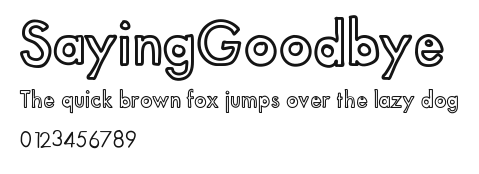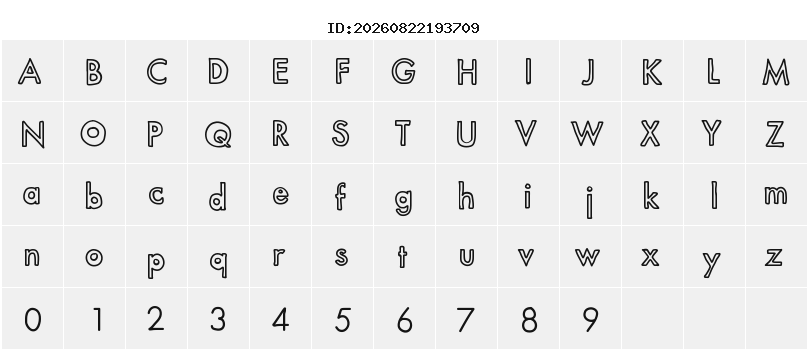
SayingGoodbye Preview
• Font Name: SayingGoodbye
• Full Font Name: SayingGoodbye
• PostScript Name: SayingGoodbye
About SayingGoodbye.ttf
SayingGoodbye.ttf is a modern, elegant sans-serif font designed for ultimate readability and visual harmony. Perfect for branding, headlines, web design, and print materials.